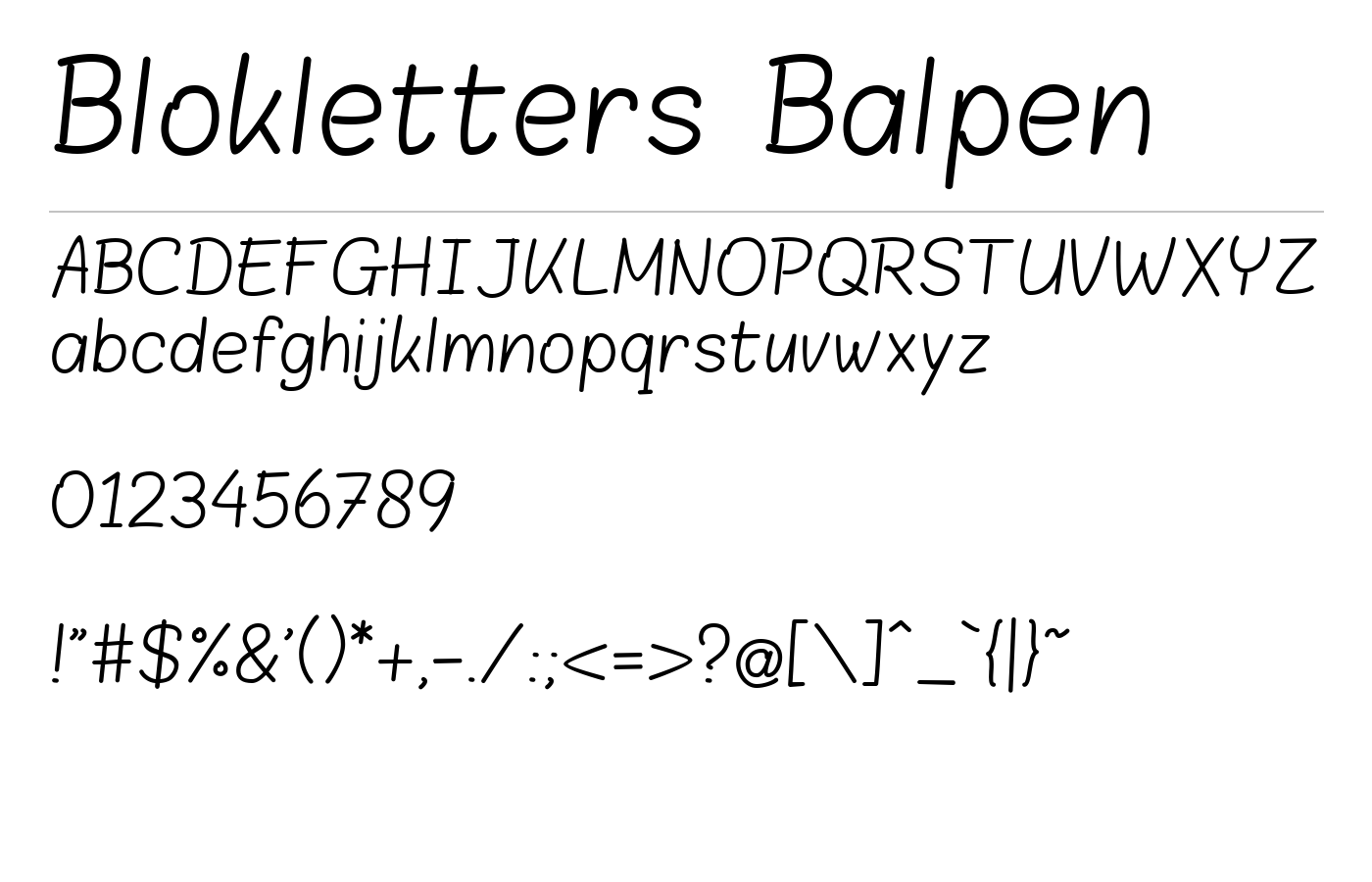
Blokletters Balpen is a casual, handwritten sans serif font that mimics the look of neat ballpoint pen writing. Its slender, slightly irregular strokes and gently rounded letterforms create a friendly and approachable feel, making it suitable for informal designs and personal communication. This font works well for creative projects, educational materials, and any context where a warm, human touch is desired.
Blokletters Balpen Font
About Blokletters Balpen Font